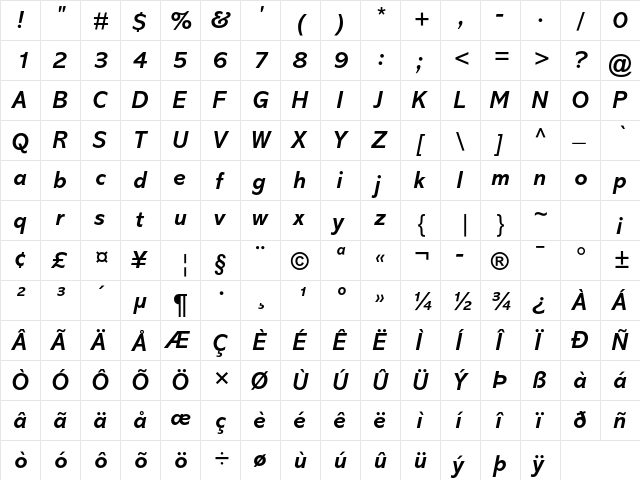
Abadi MT Std Bold Italic Font Preview
Design Context for Abadi MT Std Typeface
Abadi MT Std takes a measured approach to typography — its balanced proportions and neutral character make it a reliable workhorse for both digital and print work. Its italic angle brings a sense of urgency and motion to the letterforms. Its bold stroke weight gives it real presence on the page.
Pro Tip: Try Abadi MT Std for annotation and caption copy alongside an upright companion — the contrast in angle creates a dynamic but ordered typographic system.